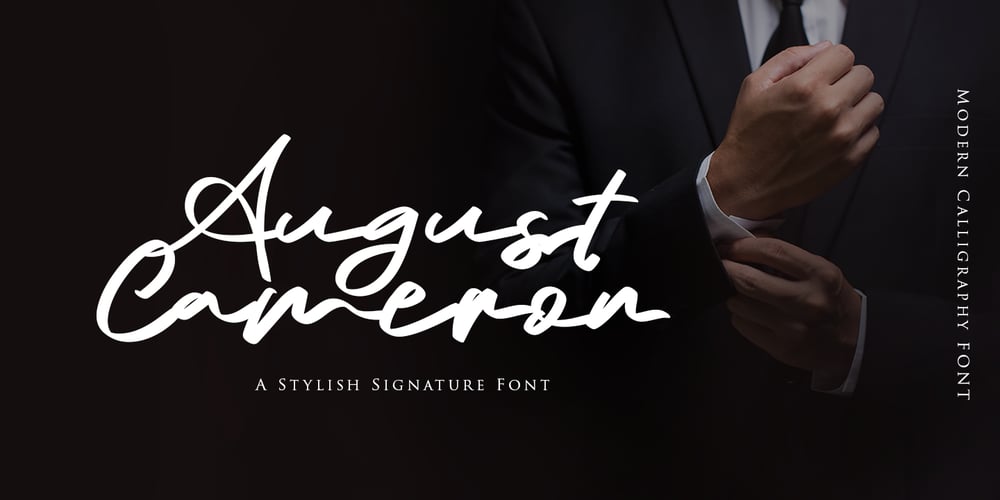
August Cameron Font Family was designed by Agni Ardi Rein Prasetyo and published by Agniardi. August Cameron contains 1 styles and family package options. August Cameron is a signature font with beautiful curves and alternate characters. A style that we choose was the natural look hand made, unique identity. South Portland also comes with alternative characters that are carefully created for adding a minimalist decor of the letters.Stylistic alternates allows versatile design options and works perfectly for Headlines, Posters, Logos Packaging, Branding, T-shirts, Greetings, Presentations and much more.